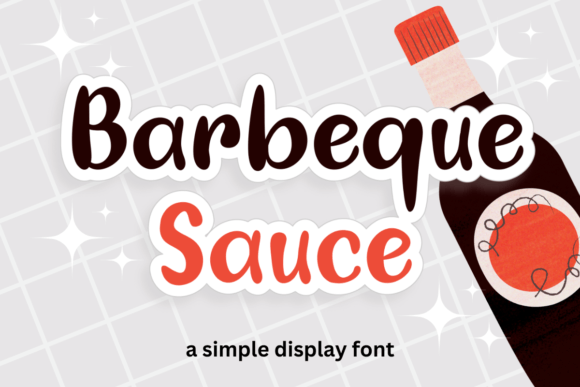
Introducing Barbeque Sauce Font: A Simple yet Playful Display Font
Are you tired of using the same old fonts in your designs? Look no further than Barbeque Sauce Font, a simple display font that is sure to add a touch of creativity and playfulness to your work. With its clean and straightforward characters, this typeface is a must-have in your fonts library.
What is Barbeque Sauce Font?
Barbeque Sauce Font is a display font that is designed to make a statement. Its simple characters are easy to read and understand, making it perfect for use in a variety of design projects, from posters and flyers to social media graphics and website headers.
One of the key features of Barbeque Sauce Font is its clean and minimalist design. The font is free from unnecessary embellishments, making it easy to use in a variety of contexts. Whether you’re looking to add a touch of whimsy to your design or simply want a font that is easy to read, Barbeque Sauce Font is a great choice.
Why Use Barbeque Sauce Font?
There are many reasons why you should consider using Barbeque Sauce Font in your designs. Here are just a few:
- Simple and Easy to Read: The characters in Barbeque Sauce Font are simple and easy to read, making it perfect for use in a variety of design projects.
- Playful and Creative: Despite its simplicity, Barbeque Sauce Font has a playful and creative vibe that is sure to add a touch of personality to your designs.
- Versatile: Barbeque Sauce Font can be used in a variety of contexts, from posters and flyers to social media graphics and website headers.
- Must-Have in Your Fonts Library: With its unique blend of simplicity and playfulness, Barbeque Sauce Font is a must-have in your fonts library.
How to Use Barbeque Sauce Font?
Using Barbeque Sauce Font is easy. Here are a few tips to get you started:
- Use it for Headings: Barbeque Sauce Font is perfect for use in headings and titles. Its simple and clean design makes it easy to read, even at large sizes.
- Add a Touch of Whimsy: Use Barbeque Sauce Font to add a touch of whimsy to your designs. Its playful vibe makes it perfect for use in designs that require a bit of personality.
- Pair it with Other Fonts: Barbeque Sauce Font can be paired with other fonts to create a unique and interesting design. Try pairing it with a serif font for a bold and eye-catching look.
Benefits of Using Barbeque Sauce Font
There are many benefits to using Barbeque Sauce Font in your designs. Here are just a few:
- Improved Readability: The simple and clean design of Barbeque Sauce Font makes it easy to read, even at small sizes.
- Enhanced Creativity: The playful vibe of Barbeque Sauce Font is sure to add a touch of creativity to your designs.
- Increased Versatility: Barbeque Sauce Font can be used in a variety of contexts, making it a versatile addition to your fonts library.
In conclusion, Barbeque Sauce Font is a simple display font that is sure to add a touch of creativity and playfulness to your designs. With its clean and straightforward characters, this typeface is a must-have in your fonts library. Whether you’re looking to add a touch of whimsy to your design or simply want a font that is easy to read, Barbeque Sauce Font is a great choice.
- What is Barbeque Sauce Font? Barbeque Sauce Font is a simple display font that is designed to make a statement.